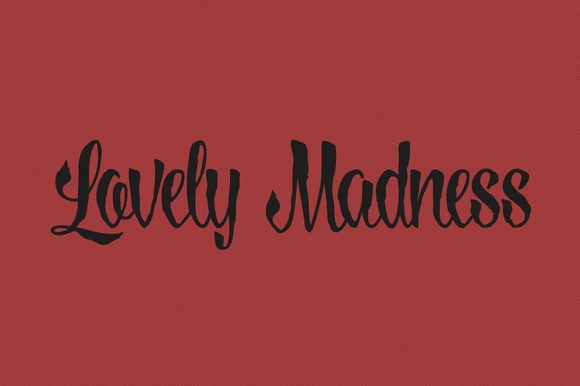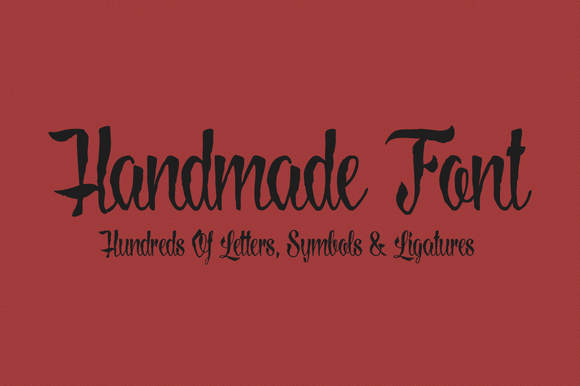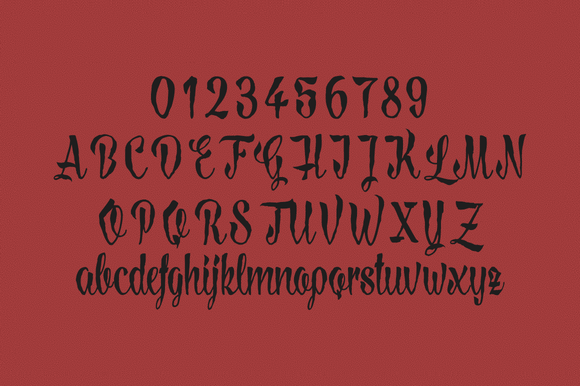
Lovely Madness Font
About Lovely Madness Font
‘Lovely Madness’ is a modern calligraphy font, which is a hybrid out of various types of calligraphy – based fonts. ‘Lovely Madness’ is elegant and at the same time playful, as well as rough and maybe a little bit creepy.